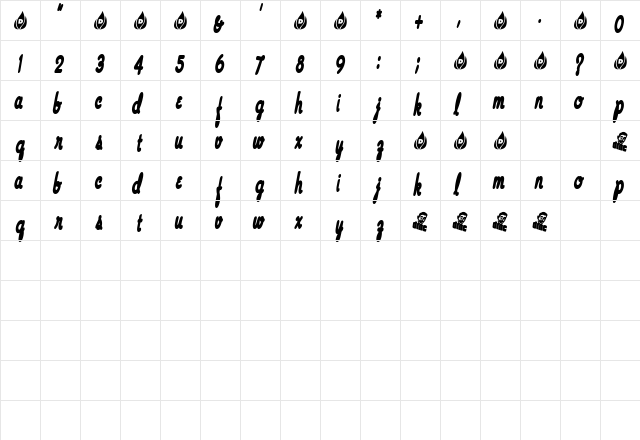
SundaySanFrancisco Regular
Design Context for SundaySanFrancisco Typeface
SundaySanFrancisco is a composed and adaptable typeface that performs quietly and consistently across a wide range of design contexts.